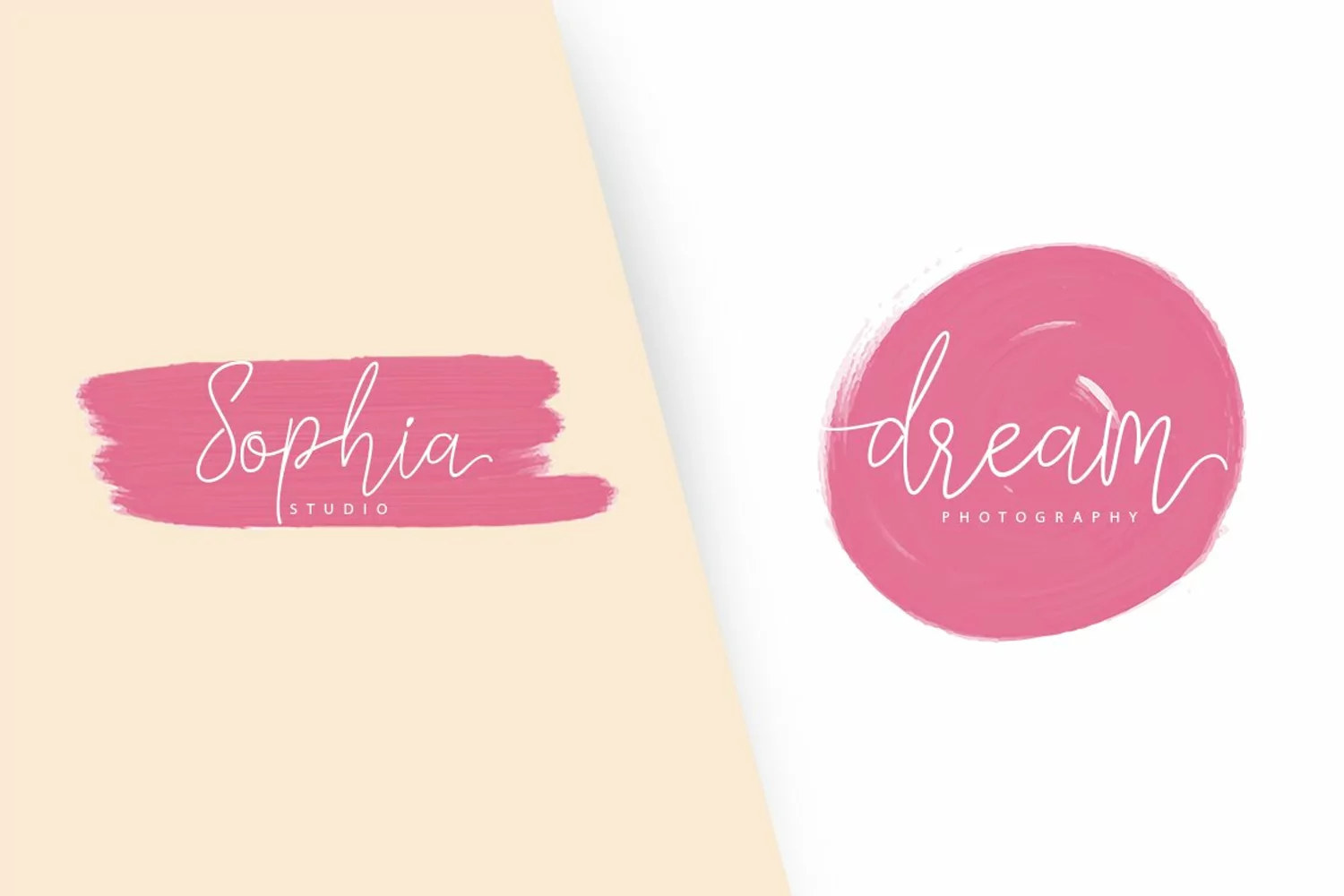
Licht Monoline Script
Licht monoline Script is a beautiful handmade script font, modern calligraphy & fresh typeface. Licht Script suitable for titles, signatures, logos, t-shirts, letterheads, signage, labels, newsletters, posters, badges, wedding invitations such as greeting cards, branding material, business cards, quote, posters, and more!
Licht Script Features:
- Uppercase, Lowercase, Numerals, etc
- Support PUA unicode (specially coded fonts)
- Stylistic alternates with number after character
Khurasan